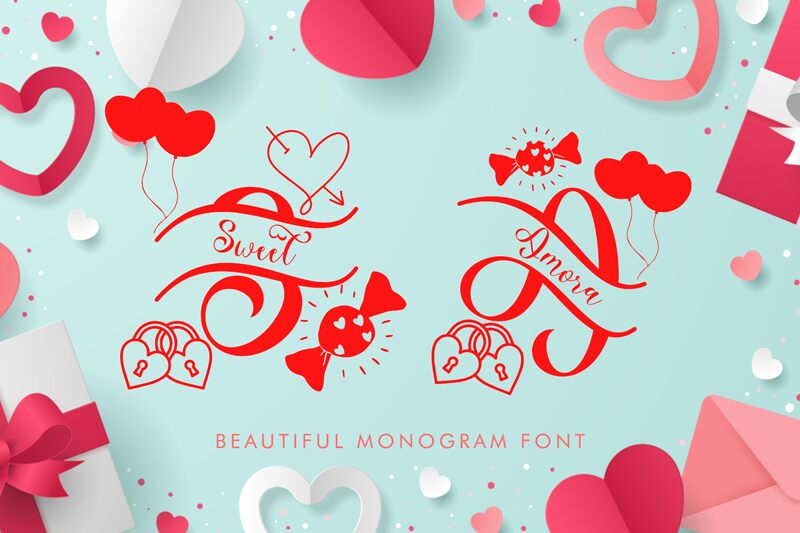
Sweet Amora font family by Yoga Letter includes 2 font styles with a romantic and elegant character. Seamlessly blending the past with the present, the fonts are vintage-inspired and ornate, with flowing and expressive letterforms. Their beautifully decorative style is whimsical and unique, appearing exquisite in any size, especially large.
Create impactful headlines, logotypes, or body texts, all with the same fantastic effect! The font can easily orient your designs to holiday, luxury, or vintage style, where the most common uses are invitations, letters, business cards, posters, and branding projects.